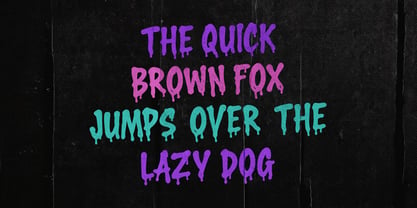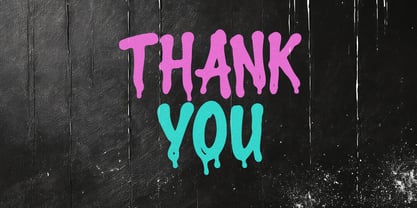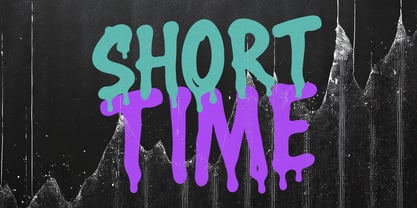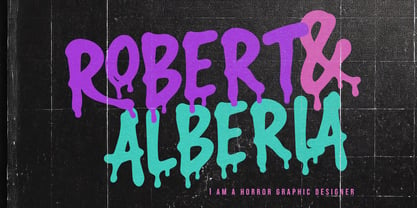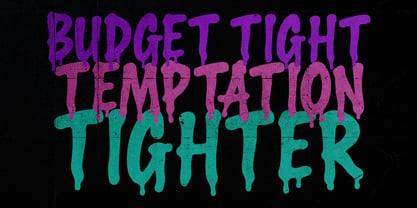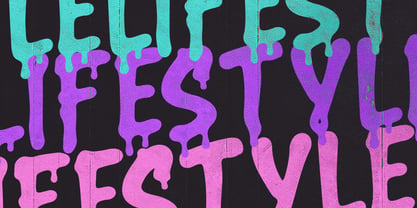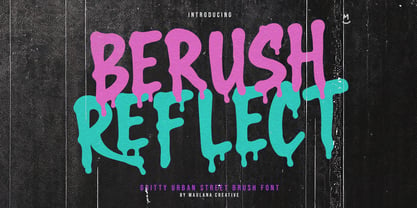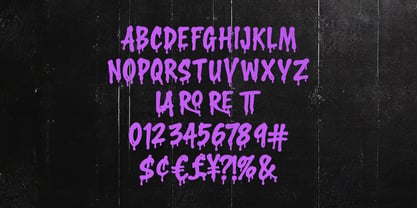
MC Berush Reflect
by Maulana Creative
The MC Berush Reflect Font Family was designed by Gilang Maulana and published by Maulana Creative. MC Berush Reflect contains 1 styles. More about this family
Berush Reflect is a raw, high impact brush font designed to capture the rebellious spirit of urban street art. Featuring a dripping paint effect and bold, hand lettered strokes, this typeface brings a gritty, underground vibe to any project. Its textured edges and liquid like terminals make it perfect for horror themed graphics, edgy branding, music posters, and modern graffiti displays. Whether you are aiming for a spooky aesthetic or a loud street-style statement, Berush Reflect delivers a powerful, unpolished look that demands attention.
Designers: Gilang Maulana
Foundry: Maulana Creative